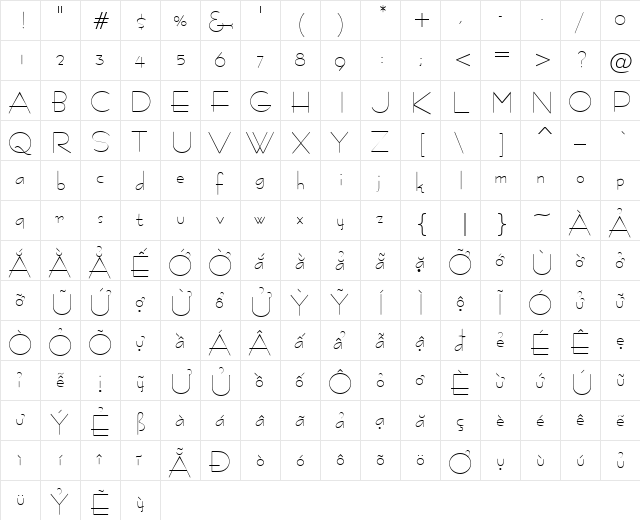
VPS Phuoc Thanh Normal
Design Context for VPS Phuoc Thanh Typeface
VPS Phuoc Thanh offers clean, dependable letterforms without strong stylistic allegiance, making it a practical choice for designers who need flexibility.